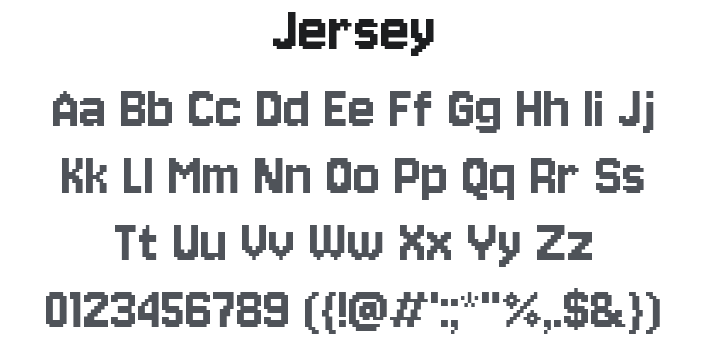
About Jersey
Jersey is a sporty, versitile sans-serif typeface, knittable at various sizes.
Each typeface has a “Regular” and “Charted” version, and some include multiple scales so you can fit type on your knits, no matter the project's size.
In this collection, the number following the typeface's name indicates the height of the capital letters for that typeface.
These typefaces were designed with machine knitting in mind, but could be used for hand knitting, needlework, bedazzling, or many other textile crafts.
Note: For Fair Isle knitting, you need to beware of floats and plan accordingly, as always.